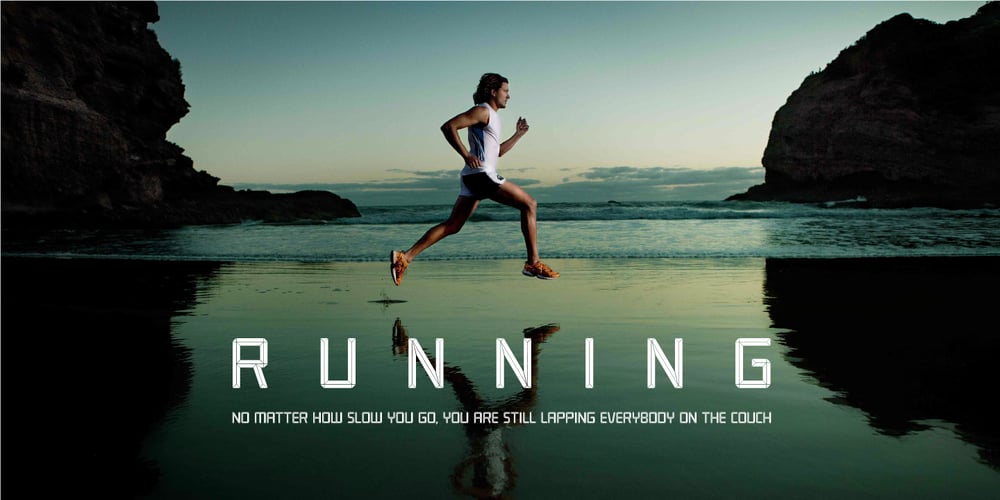
constructor Font Family was designed by Dmitry Arakelov and published by Fontop. constructor contains 4 styles and family package options. Introducing a new bold CONSTRUCTOR font family. Perfect combination of 2 fonts (Light and Shadow) to create your own layered 3D headlines, eye-catching texts, logotypes, design, posters for sports, music, street culture, modern arts, industries and many more other themes. 2 more fonts (Emboss and Regular) have bold 3D effects thanks to their design and shapes. Fonts have extensive Latin multilingual support, uppercase, small-caps, numbers and basic punctuations.